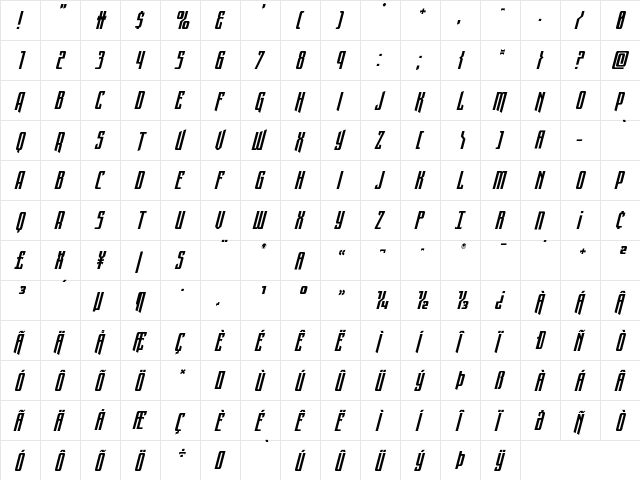
Night Traveler Super Italic Regular
Design Context for Night Traveler Super Italic Typeface
Night Traveler Super Italic is a composed and adaptable typeface that performs quietly and consistently across a wide range of design contexts. The dynamic lean of this cut emphasises speed and emphasis in any layout.
Pro Tip: Try Night Traveler Super Italic for annotation and caption copy alongside an upright companion — the contrast in angle creates a dynamic but ordered typographic system.